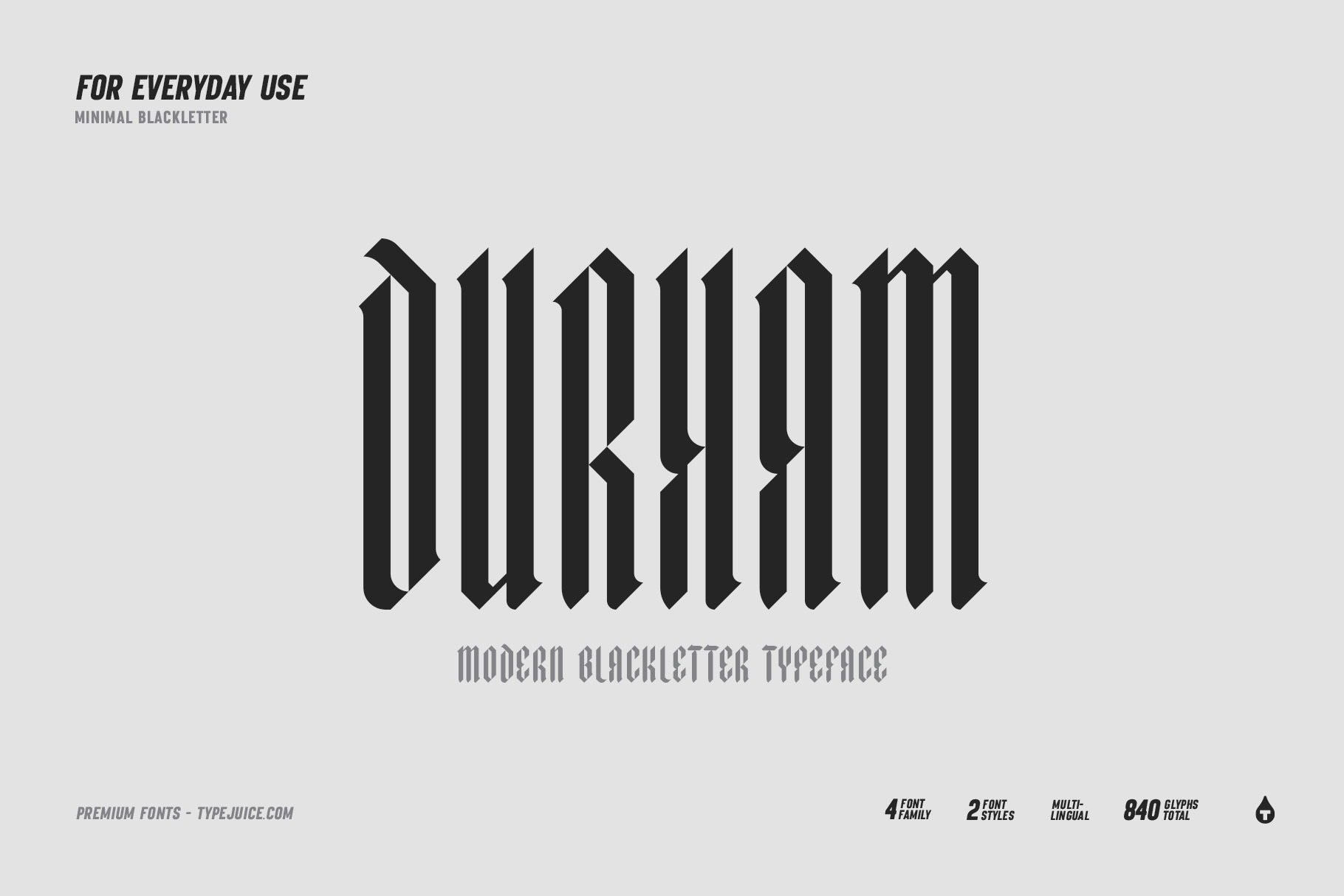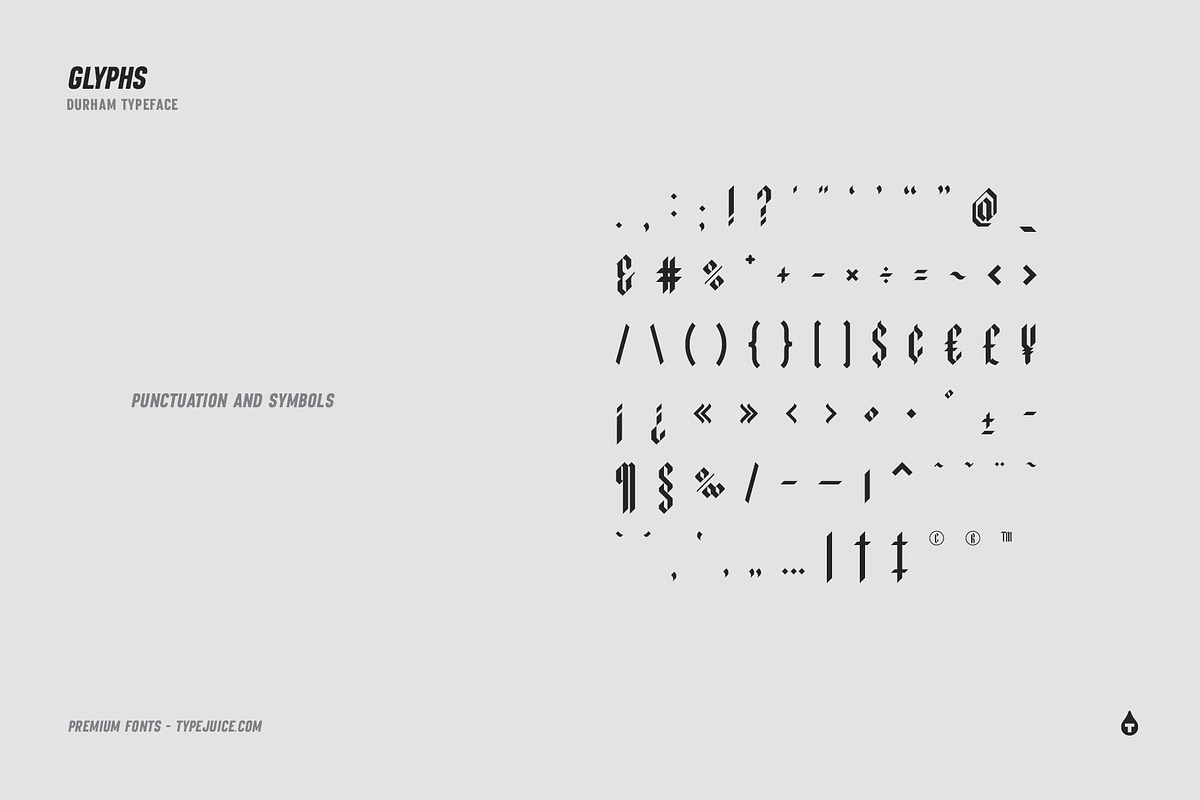
Durham Modern Blackletter Typeface
Durham is a modern blackletter typeface made up of 4 fonts. A clean and minimal take on classic blackletter with an ultra condensed look.